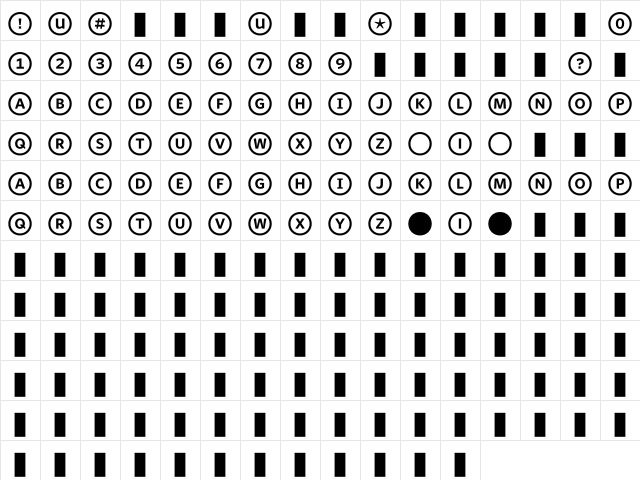
WhitneyIndexWhite RoundBd Font Preview
WhitneyIndexWhite RoundBd
Design Context for WhitneyIndexWhite Typeface
WhitneyIndexWhite uses gentle rounded endings to create a warm, inviting typographic personality — less corporate than geometric sans, more refined than playful display fonts.
A natural fit for tech startups, health and wellness brands, children's products, and friendly consumer apps.
Font Pairing: Pairs well with a rounded or humanist sans for body copy, maintaining the friendly tone without relying on WhitneyIndexWhite to carry extended reading.
Pro Tip: Pair WhitneyIndexWhite with a geometric sans for a balanced system — the rounded softness works as a warm counterpoint to harder-edged companions.